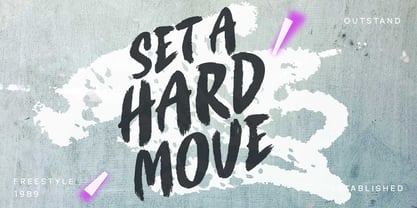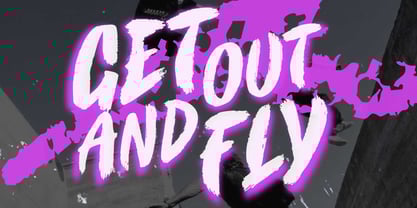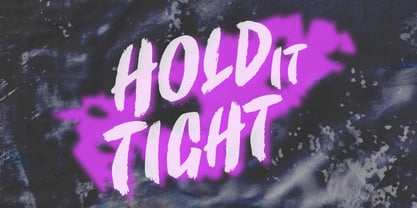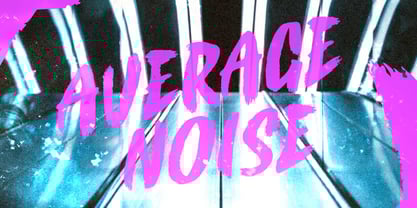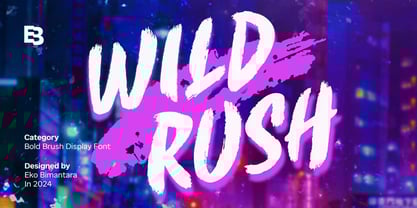
Wild Rush
by Eko Bimantara
Wild Rush is an all-caps brush display font with realistic brush strokes, delivering a masculine and expressive aesthetic. Perfect for modern and futuristic themes, it adds a bold, artistic edge to branding, titles, products, and posters. Ideal for large-size displays and headers, Wild Rush is versatile across various design applications including websites, brand identity, product packaging, and broad graphic design and creative purposes, making it an excellent choice for impactful and dynamic projects.
Designers: Eko Bimantara
Foundry: Eko Bimantara
Eko Bimantara is a type designer from Indonesia. Always has an intention to creating fonts that not only look great but also perform across a wide range of mediums and also across wide range of theme. The goal is to give designers the tools to make their projects that speaks a lot with various expression. Eko Bimantara’s fonts are featured in everything from corporate identities to street art posters, and have numerous ideas and concept ready to expand for fresh fonts for years further.